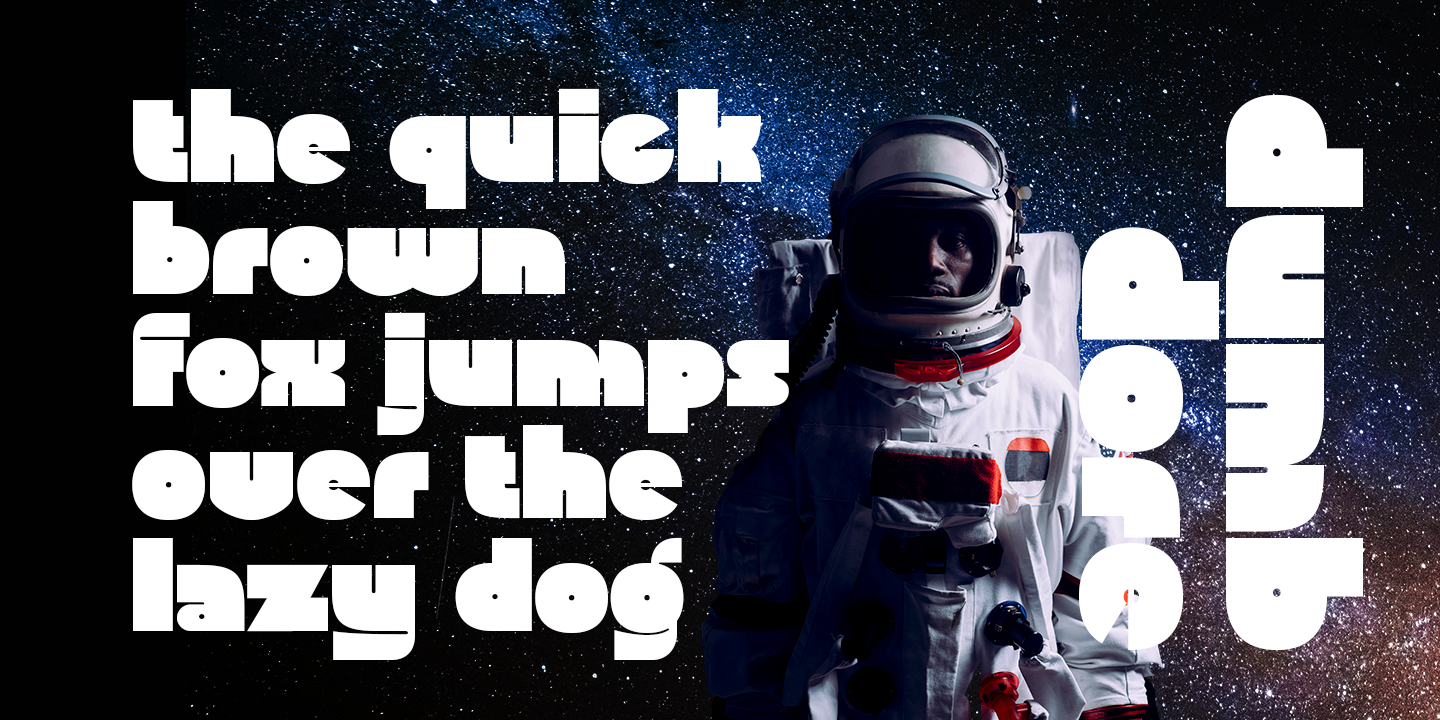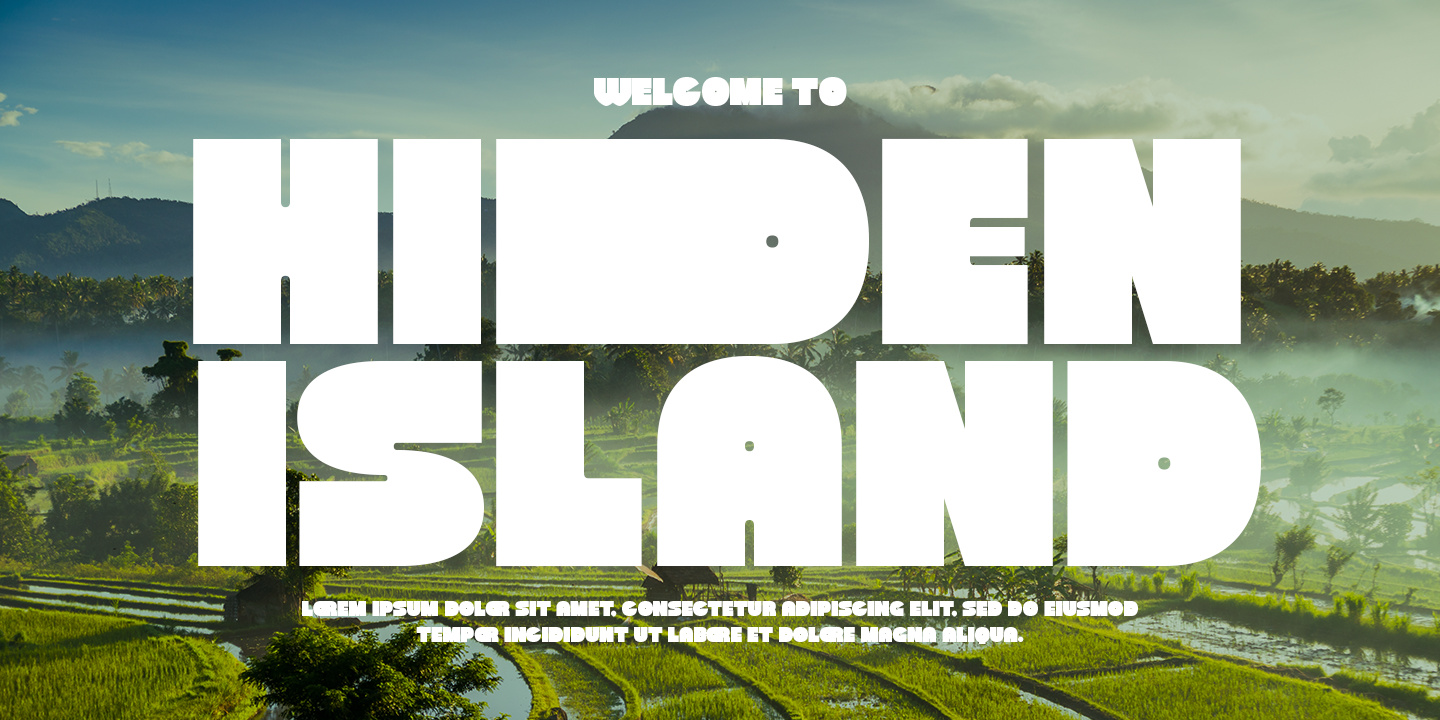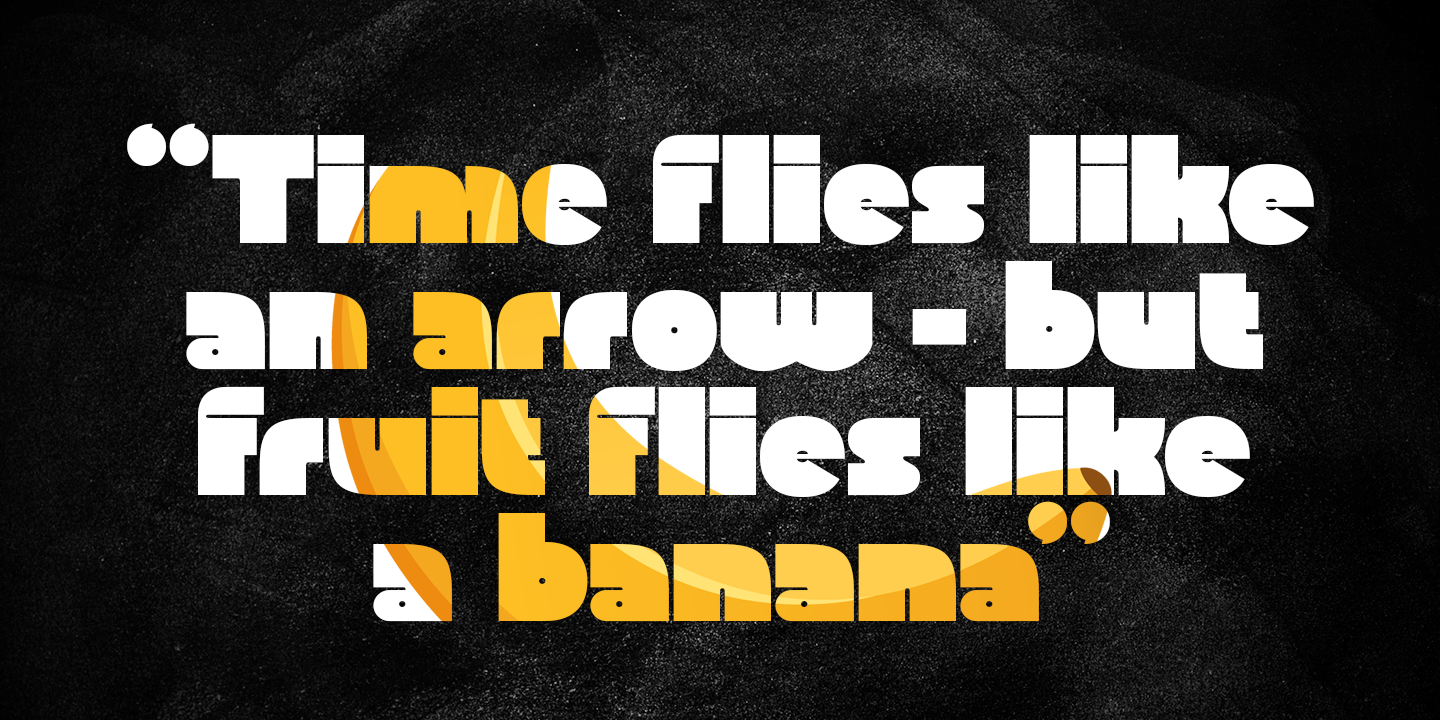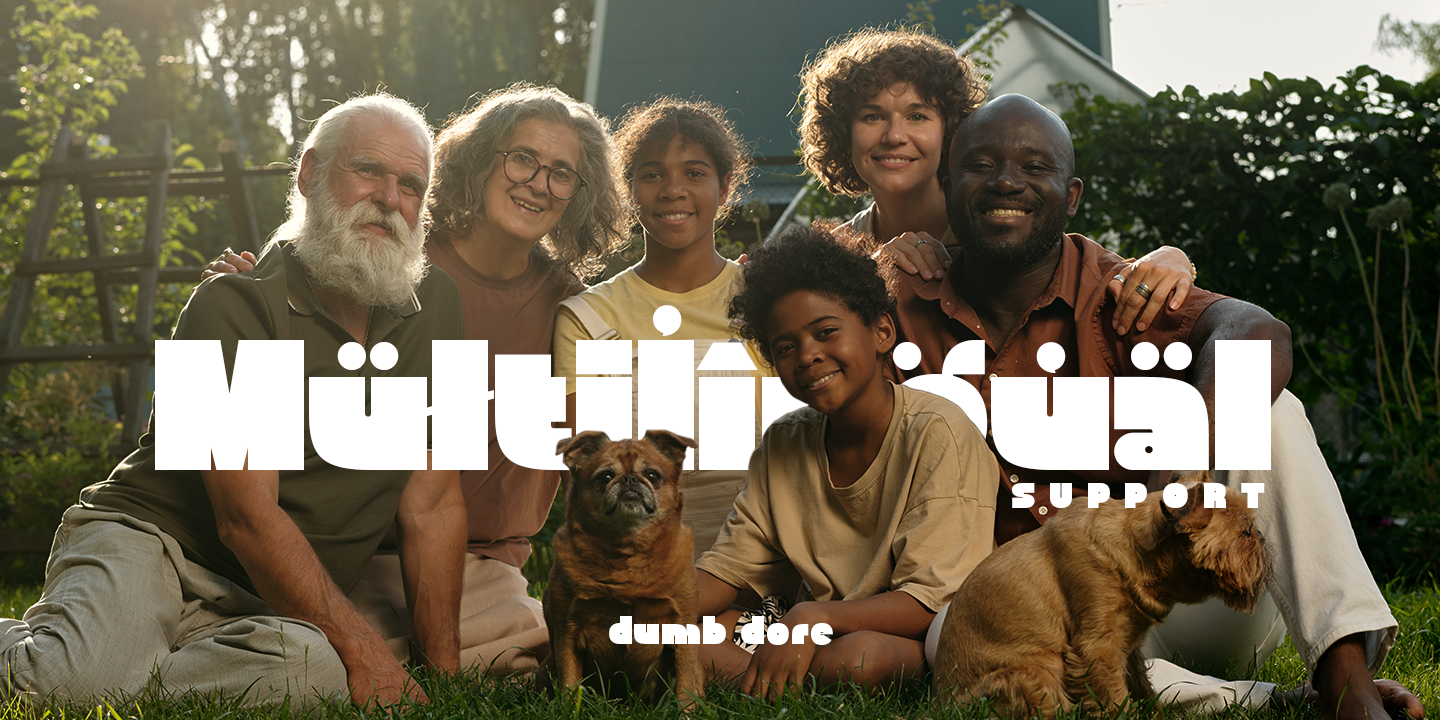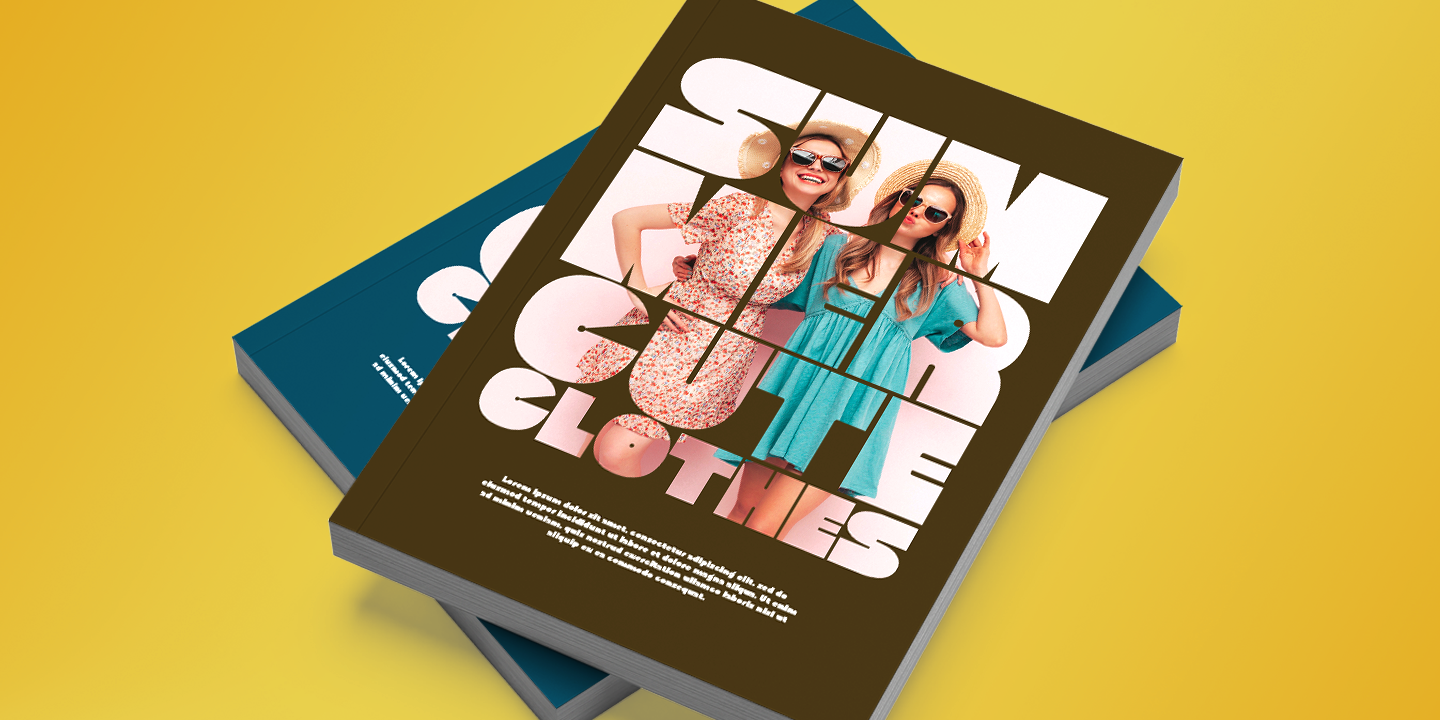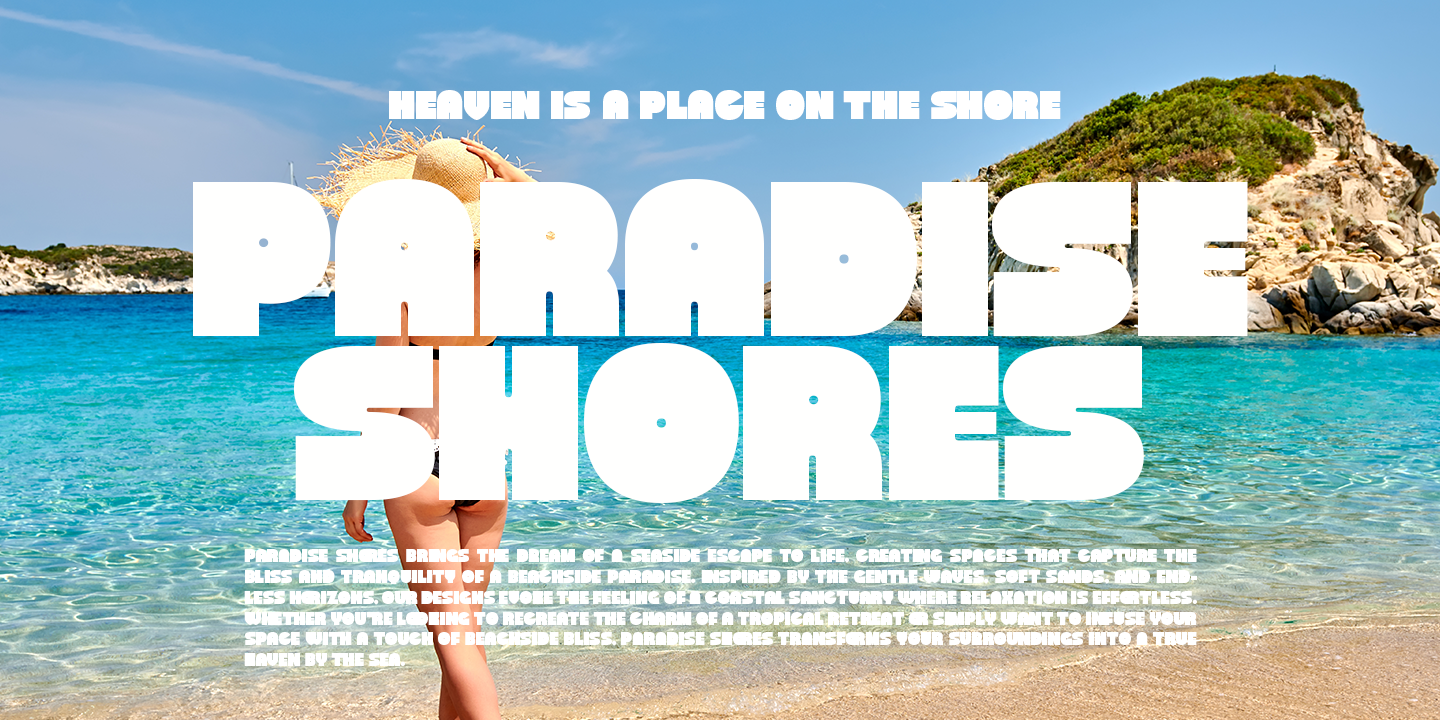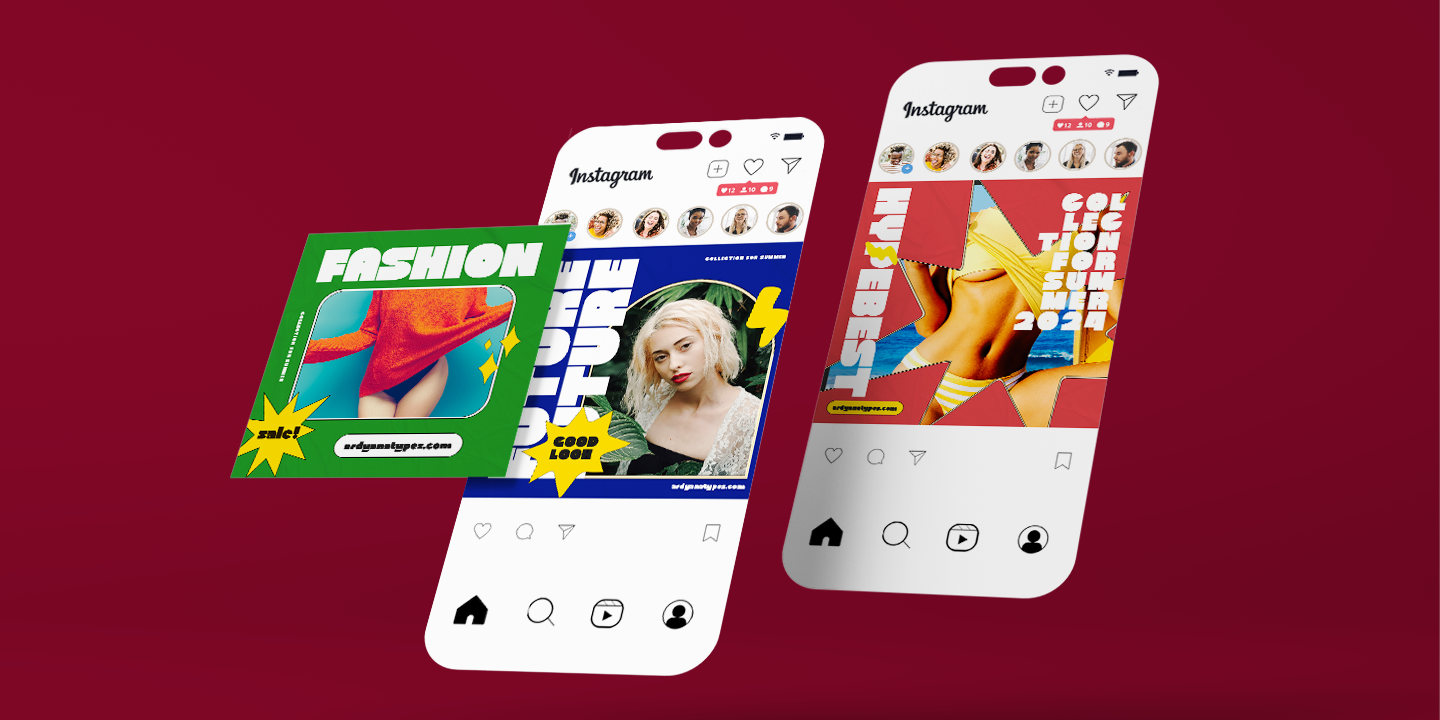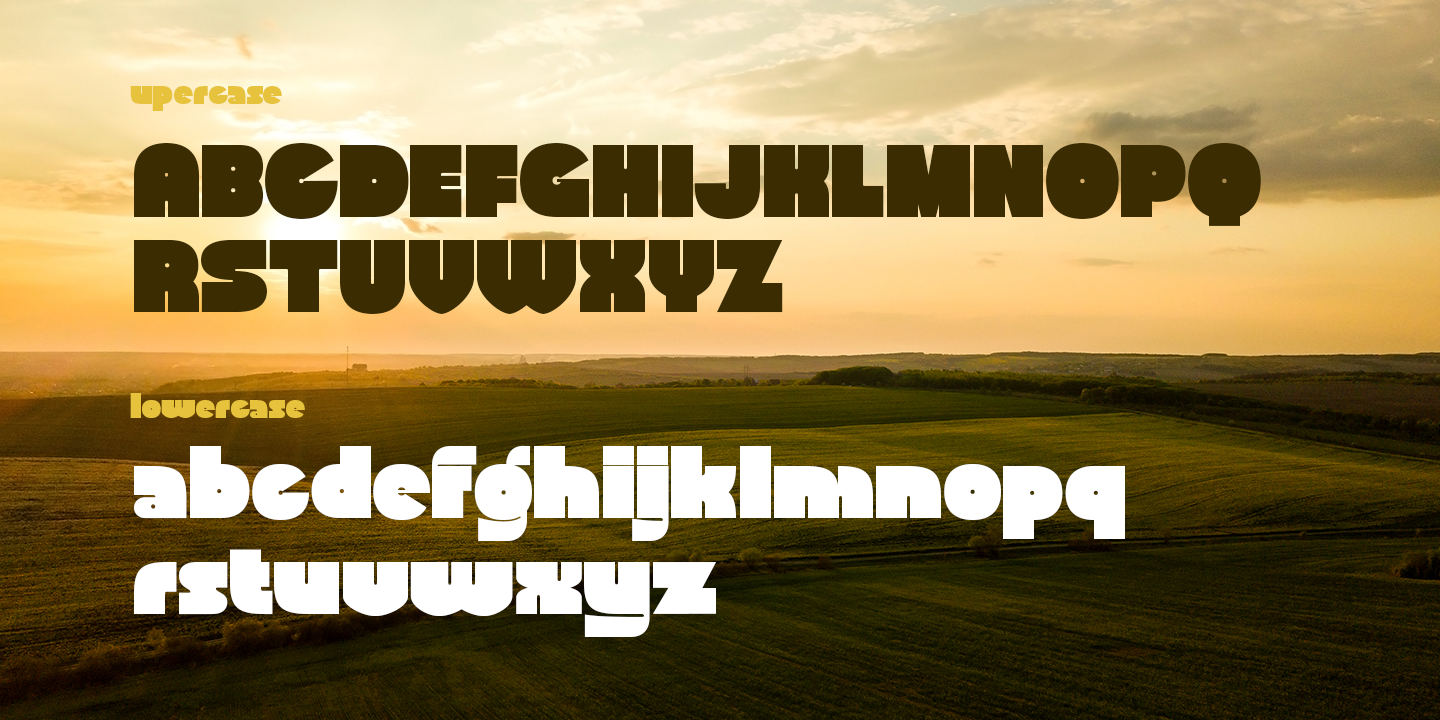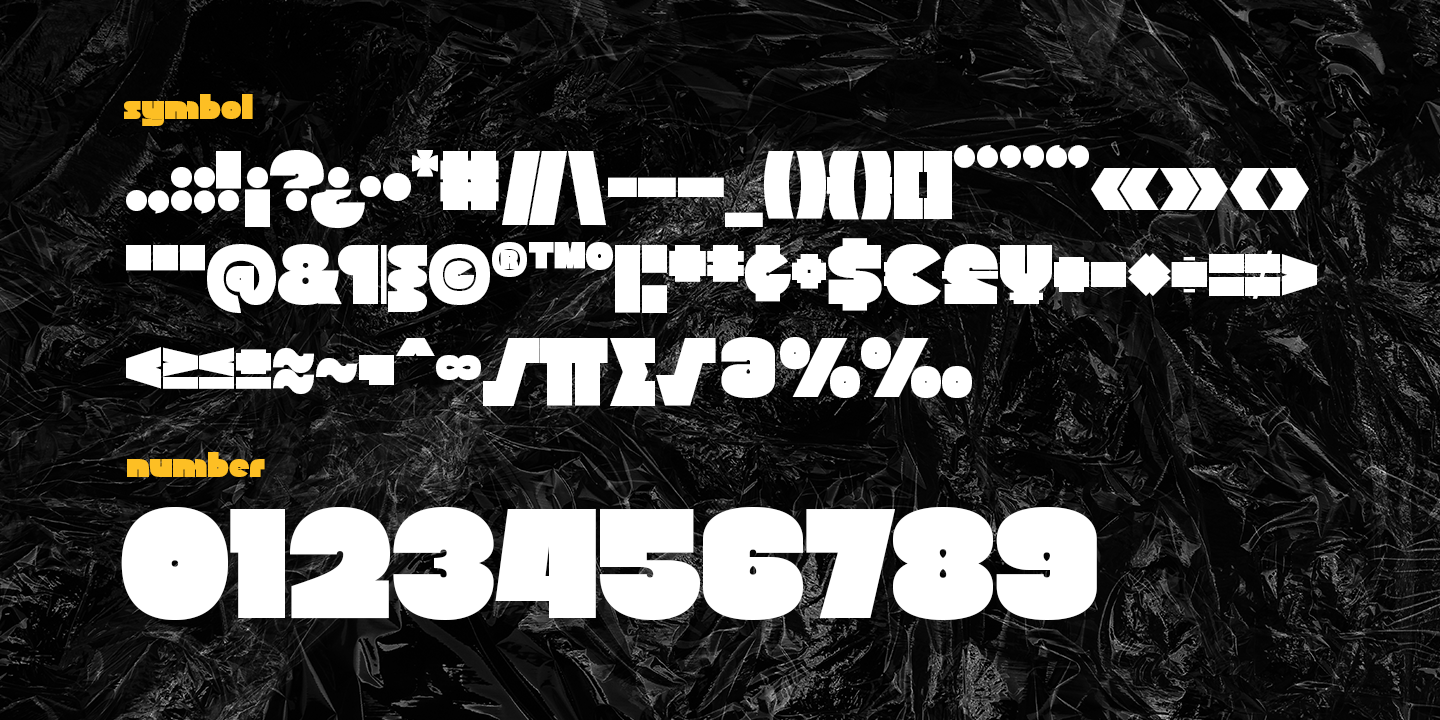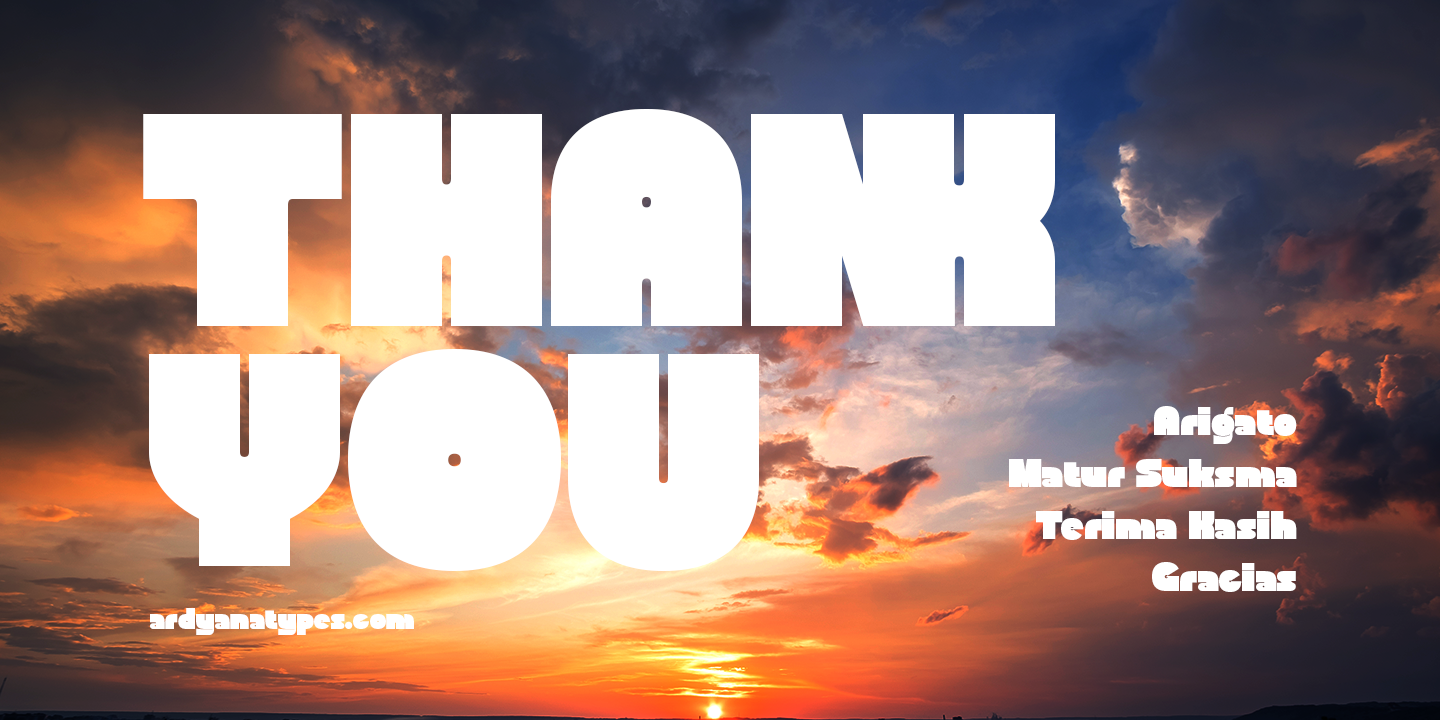
Dumddore
Dumddore is a meticulously crafted Display Typeface with a bubble style that brings a modern and captivating touch to all your design projects. Inspired by contemporary fonts, Dumddore features rich OpenType capabilities, allowing for creative typographic experimentation. Its versatile form adapts effortlessly to various design needs, whether it’s posters, movie titles, book covers, branding materials, or other large-scale projects. With extensive language support, this font is designed for global use, making it an ideal choice for designers seeking a bold and dynamic presence in their work. Elevate your designs with the unique and memorable charm of Dumddore.
• DD DD
• HH HH
• HK HK
• LL LL
• NK NK
• OO OO
• OR OR